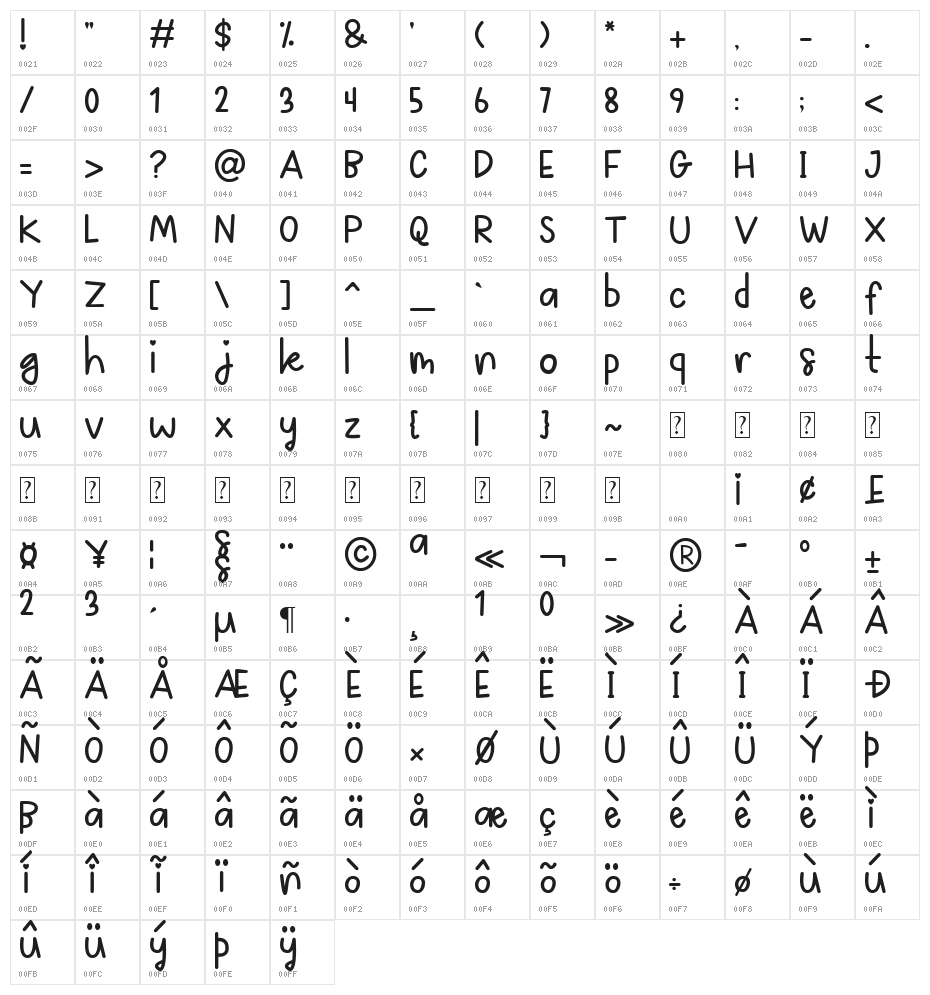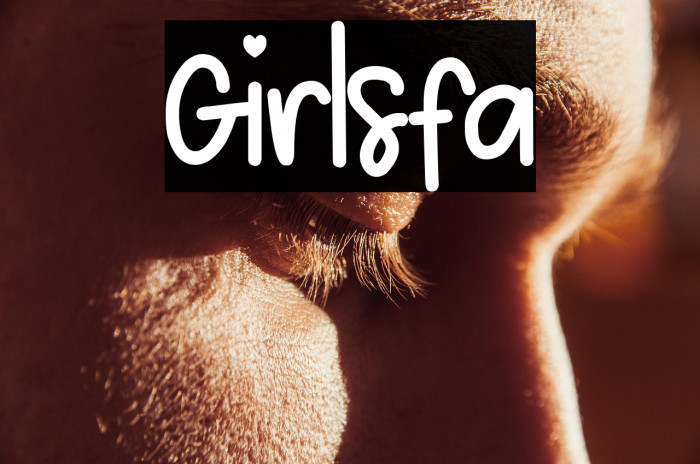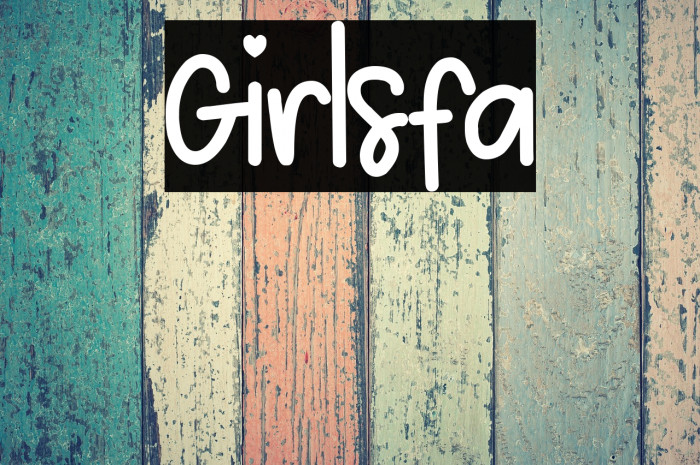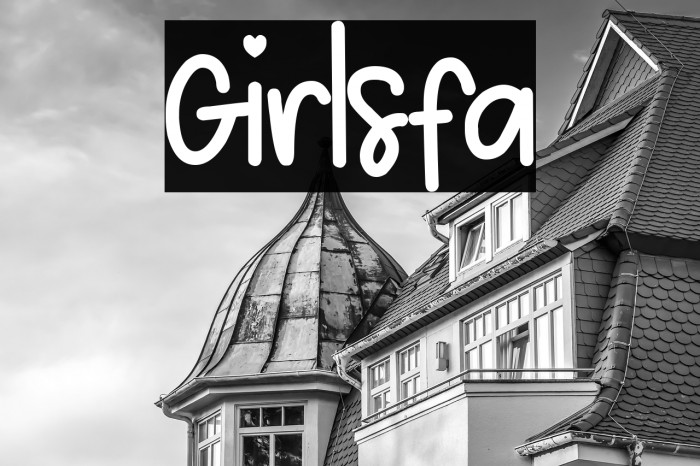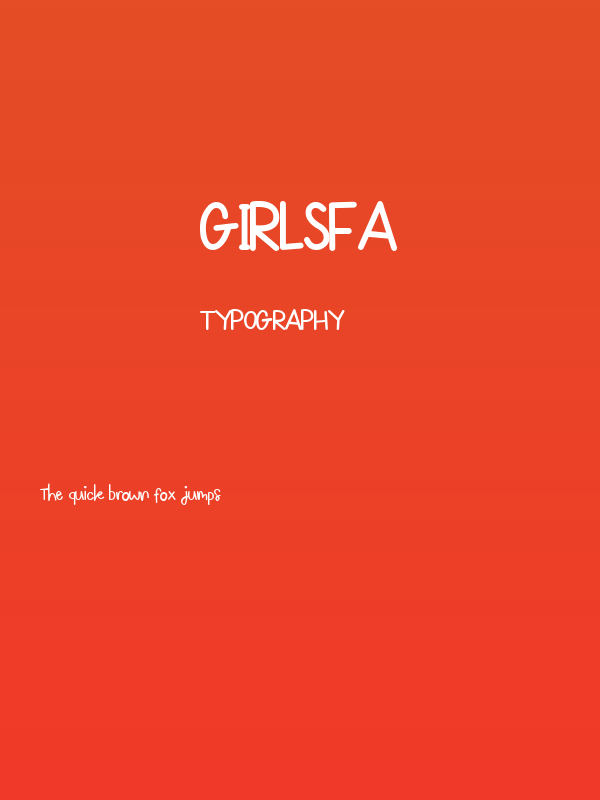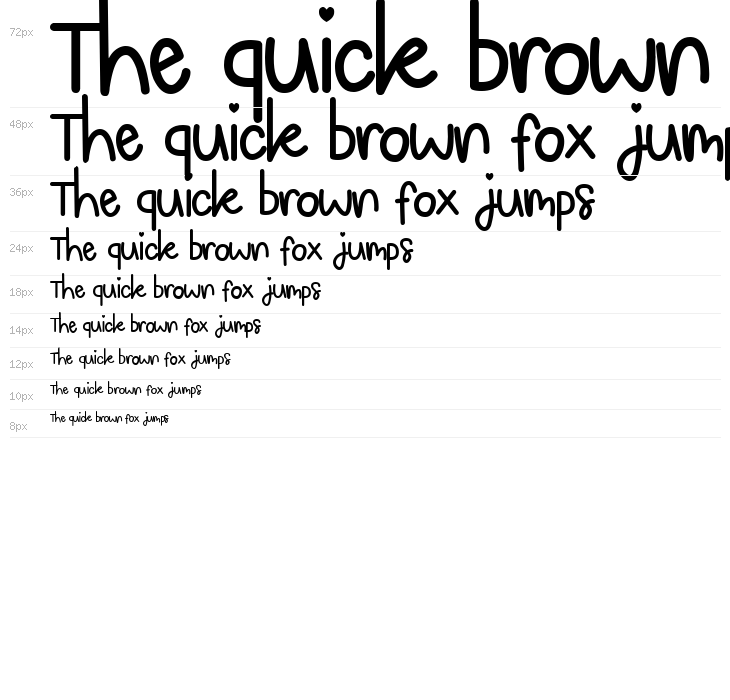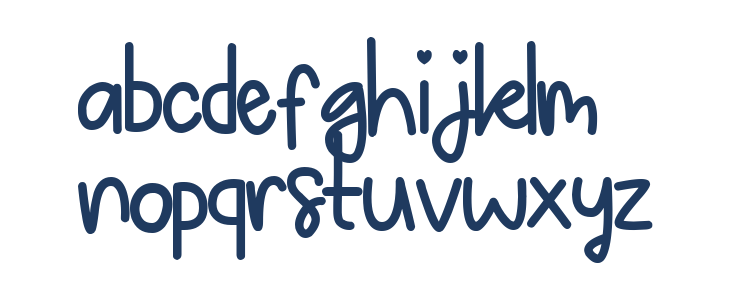
Girlsfa Font
Girlsfa Description
This playful and whimsical font features a handwritten style with a casual and friendly appearance. The letters are rounded and slightly irregular, giving it a charming and approachable feel. The uppercase and lowercase letters maintain a consistent style, with some characters like 'g' and 'j' having unique loops and curls. The numbers and special characters are designed to match the overall playful aesthetic, making it suitable for creative and informal projects. The font's design is perfect for adding a personal touch to any text, with its distinctive and lively character.
| Use Case | Headlines, Logos, Informal text |
| Proposed Projects | Ideal for children's books, greeting cards, playful branding, and social media graphics. |